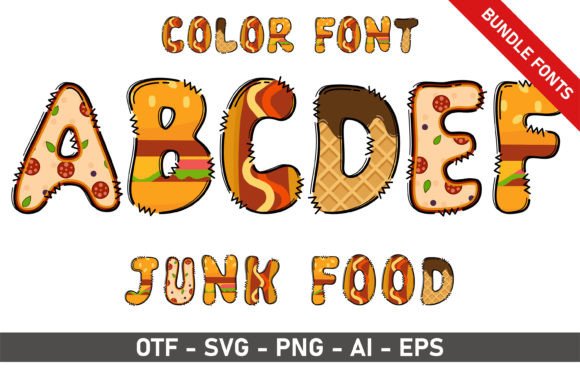
Embrace the exuberant charm of Junk Food Bundle Font, a font family that bursts with life and color, designed to inject a dash of whimsy and artistry into your creative projects. Step into a world where fonts dance with joy, expressing themselves in a symphony of hues that ignite your imagination. These captivating fonts are not just mere letters; they are vibrant brushstrokes that paint stories, spark emotions, and leave an indelible mark on your designs.
With Junk Food Bundle Font, transform your creations into captivating journeys that captivate and transport your audience to realms of wonder. Dive into the playful spirit of this font family and let your imagination run wild. Embark on a typographic adventure where every word becomes a burst of color, and every design element tells a tale.
Picture the delight on a child's face as they encounter a children's book adorned with the playful and whimsical characters of Junk Food Bundle Font. Its easy-to-read design dances across the pages, inviting young readers into a world of enchantment, where stories come alive and dreams take flight.
Unleash the boundless creativity within you as you explore the endless possibilities of Junk Food Bundle Font. Its versatility extends beyond children's books, reaching into the realm of posters, invitations, greeting cards, and more. Each stroke of color adds a layer of depth and emotion, transforming ordinary words into extraordinary expressions of art.